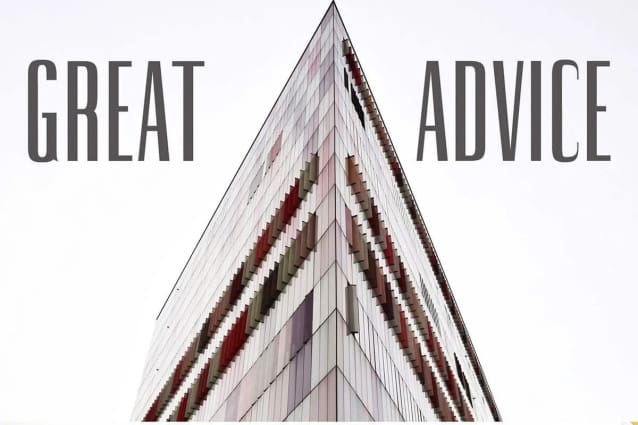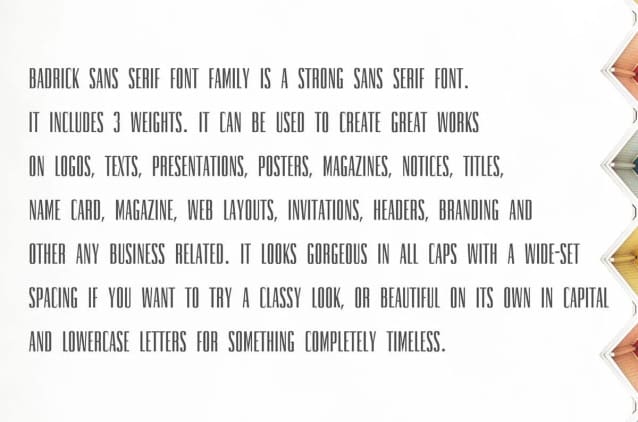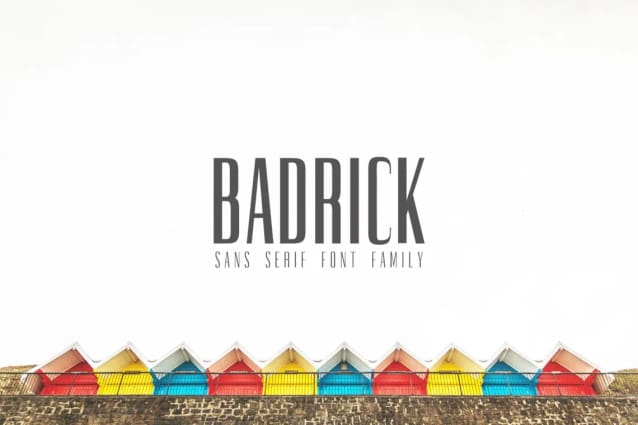
Badrick Font
Badrick Font is an elegant condensed typeface without serifs. With 3 different weights, it offers versatility for a variety of design projects. This font is perfect for creating eye-catching logos, compelling texts, engaging presentations, captivating posters, professional magazines, informative notices, bold titles, memorable name cards, captivating web layouts, standout invitations, striking headers, and cohesive branding for any business or industry.